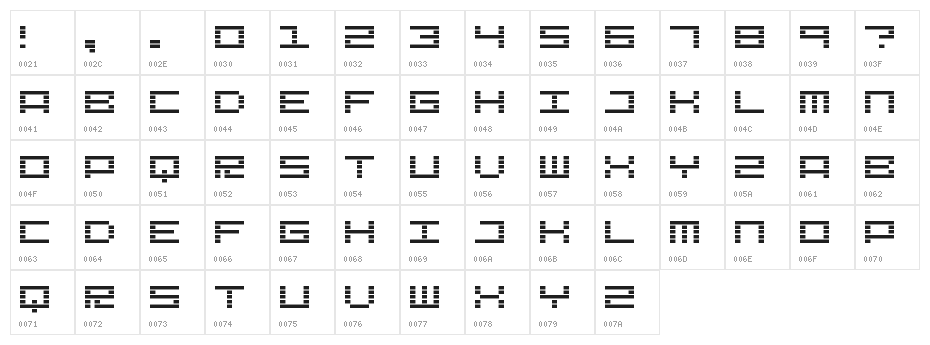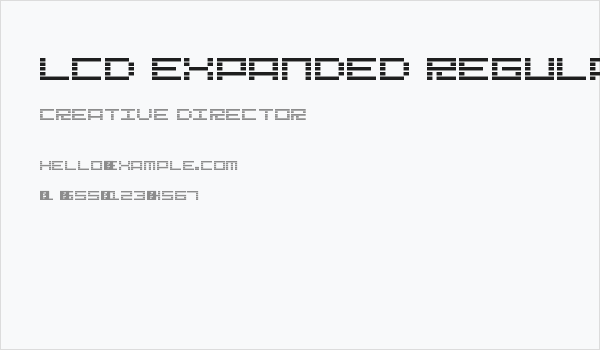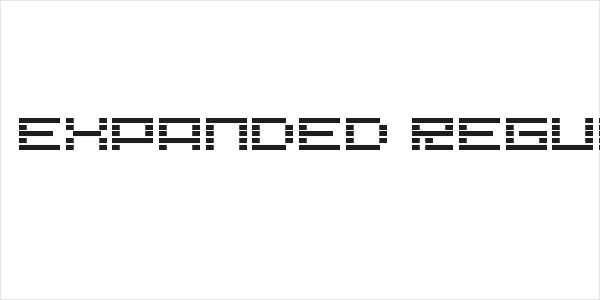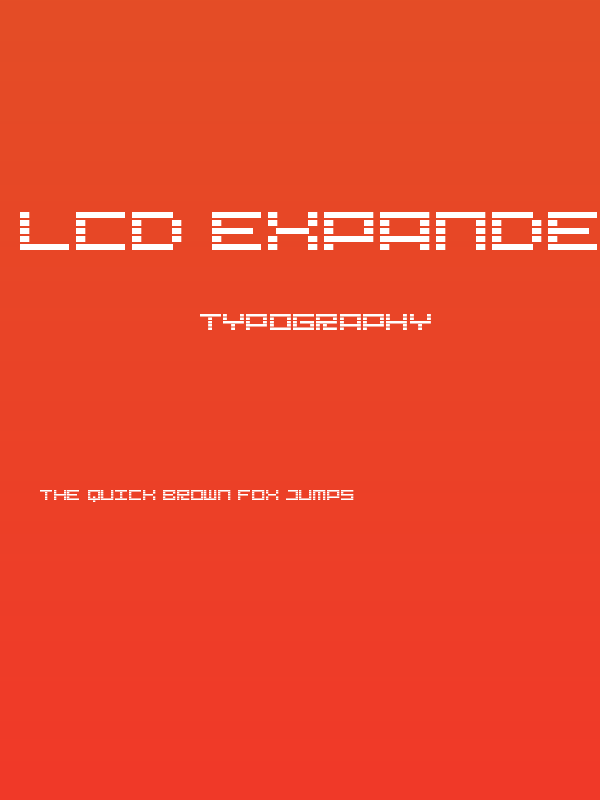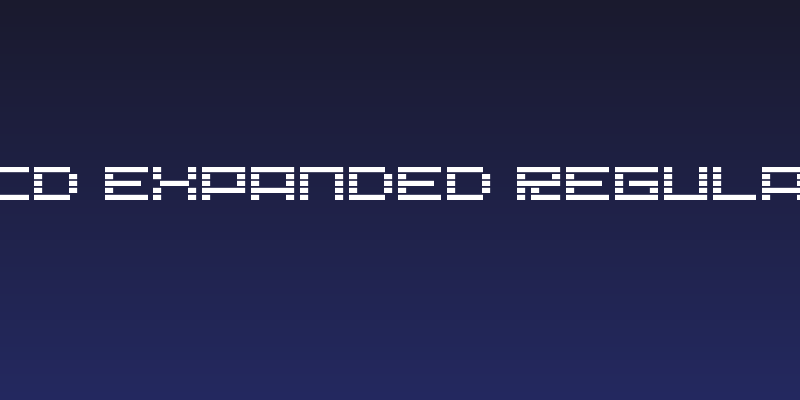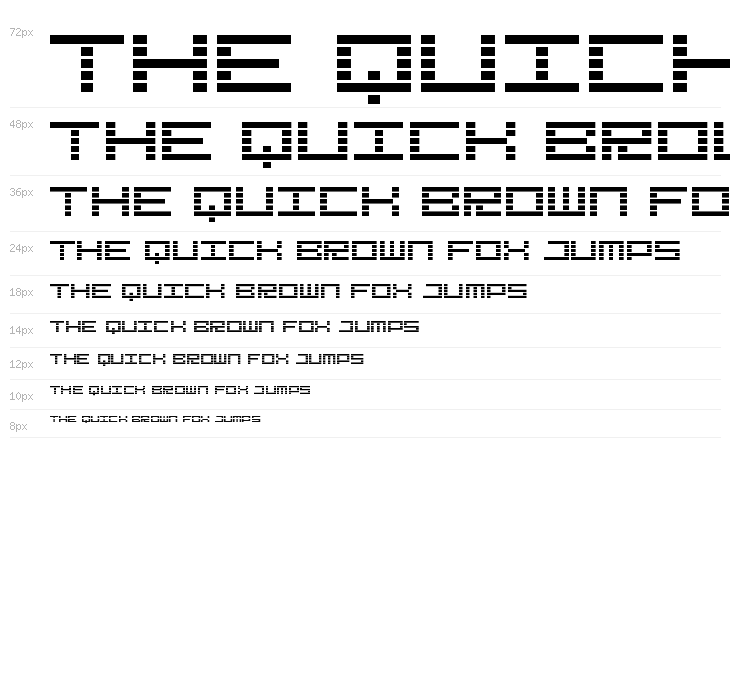
Lcd Expanded Regular Font
| 幅 | Expanded |
| おすすめプロジェクト | Ideal for digital-themed designs, tech-related branding, retro gaming interfaces, and any project requiring a futuristic or technological touch. |